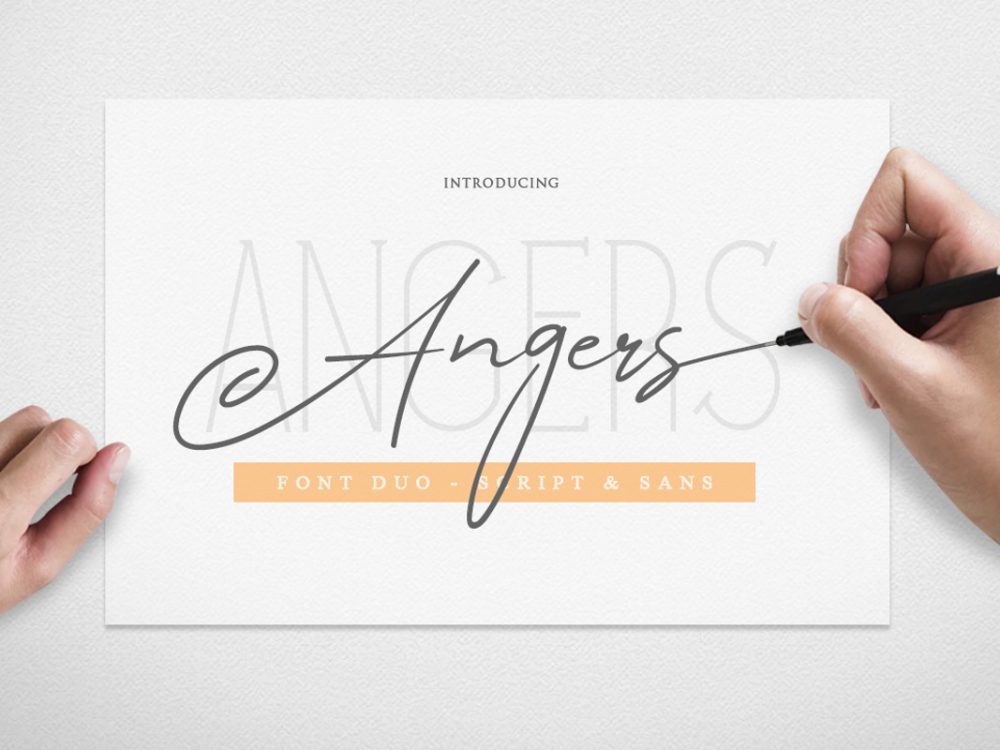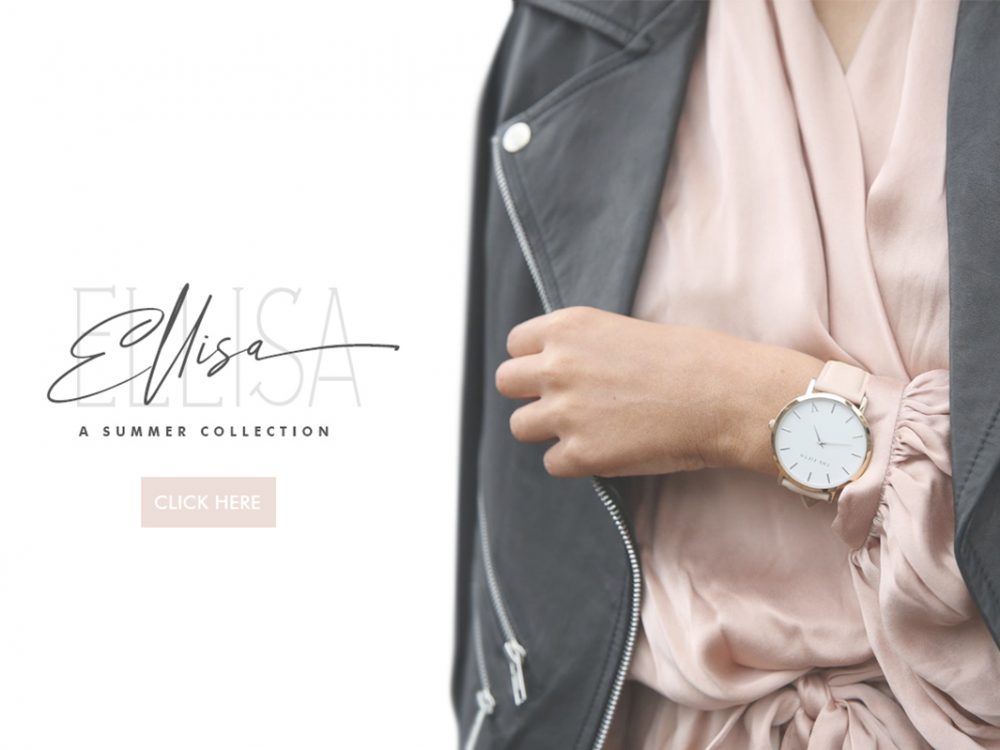
Angers Signature Script Font
Angers Signature Script Font is a beautiful interesting handwritten font that has an elegant style and is very suitable for creating various design projects. These can be posters, postcards, branding, business cards, flyers, prints, and more. If you wish to access more features and use them for commercial work please buy the full version.